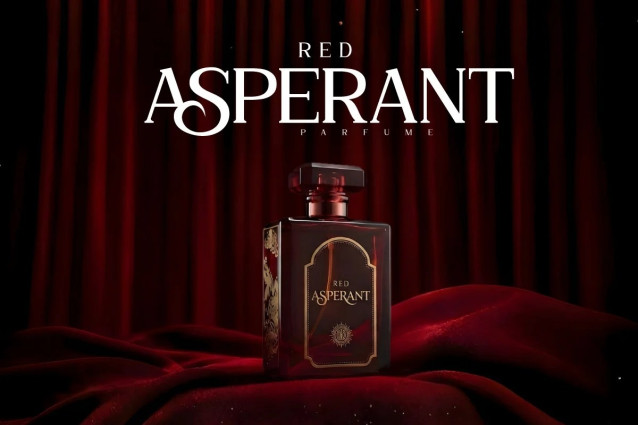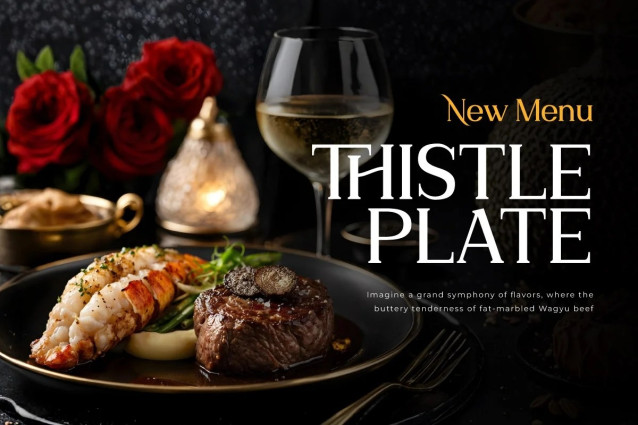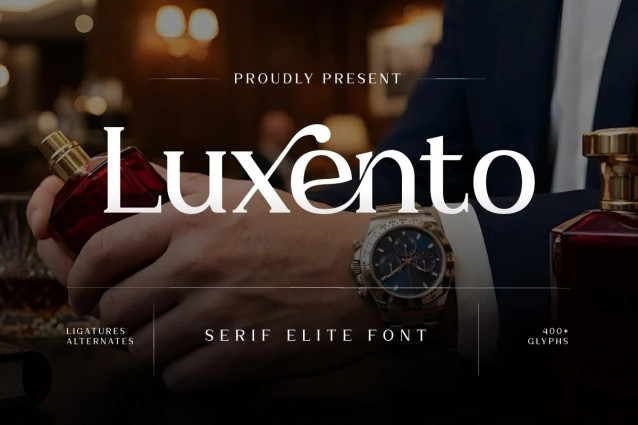
Luxento – Elite Serif Font
Luxento – Elite Serif Font is an Elite Serif typeface designed to embody the Quiet Luxury aesthetic within the high-end lifestyle industry. Featuring balanced proportions and sharp serif details, this font delivers an exclusive and authoritative impression. Its characteristics are ideal for Global Elite Branding requiring a graceful, minimalist, and timeless visual identity.